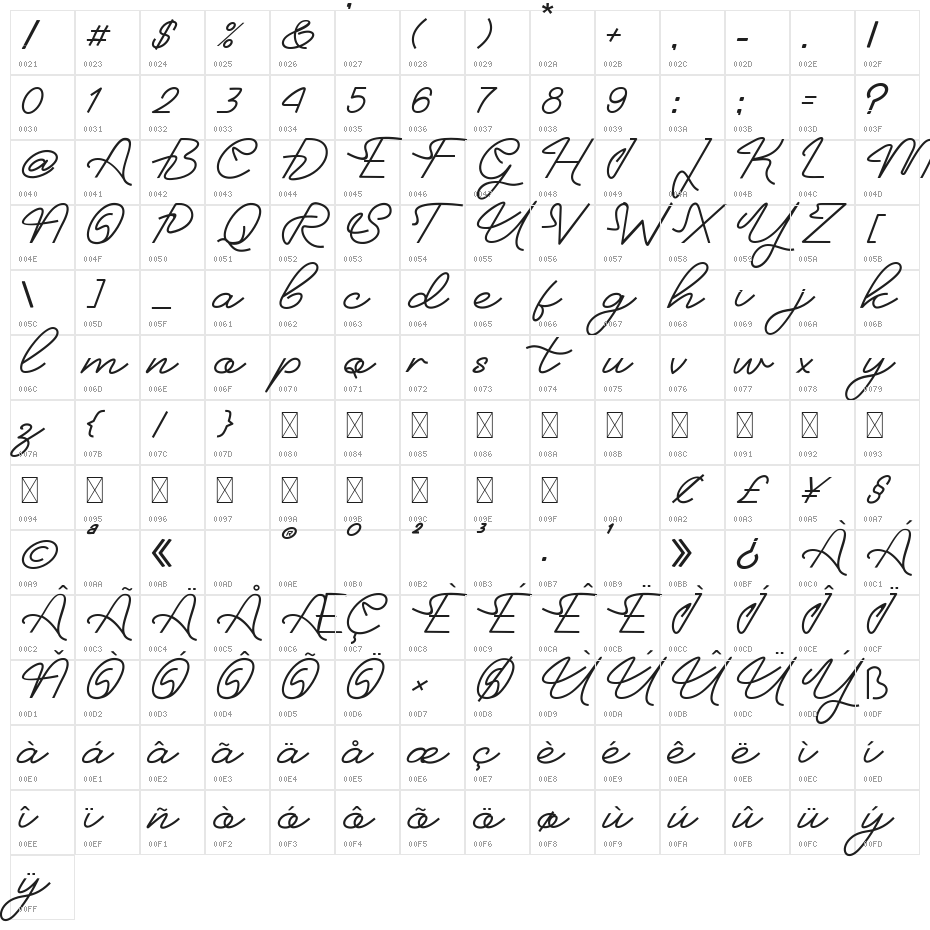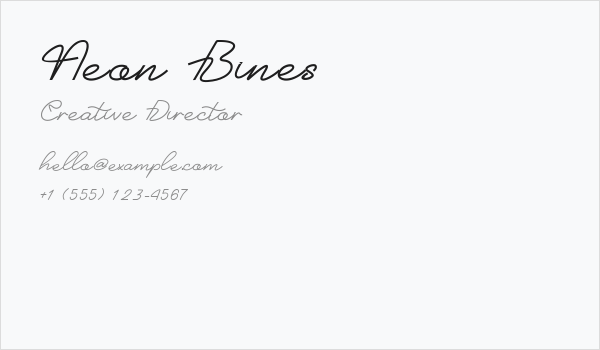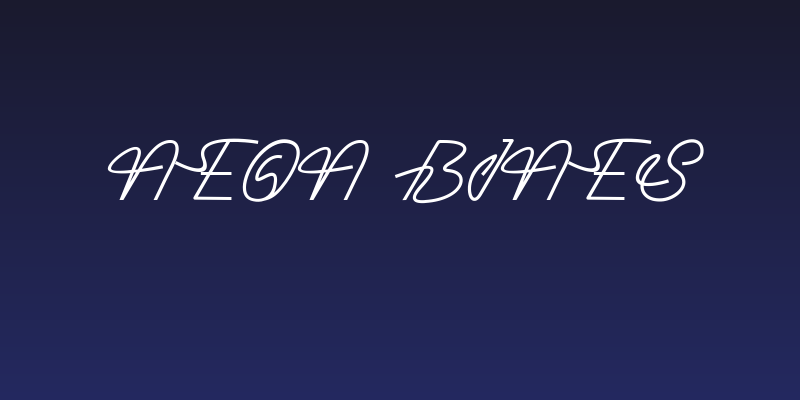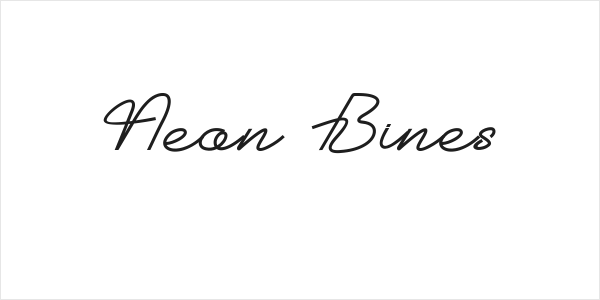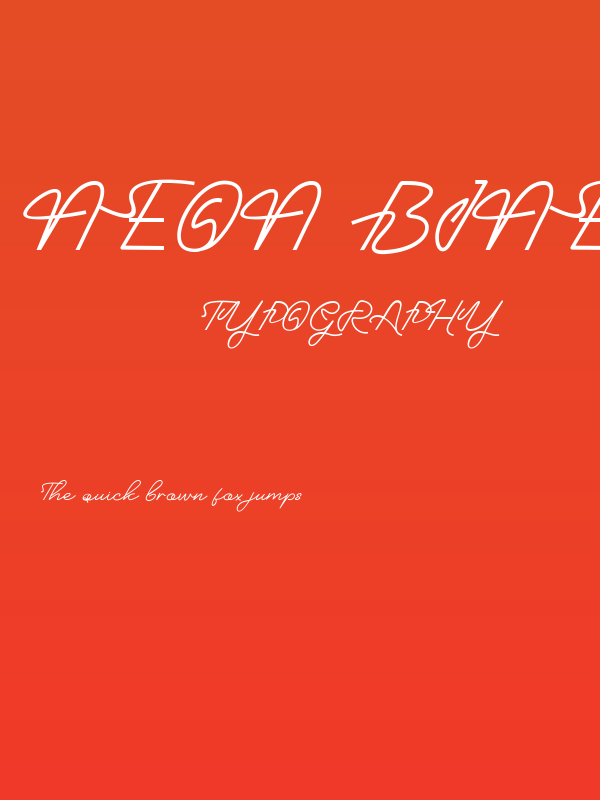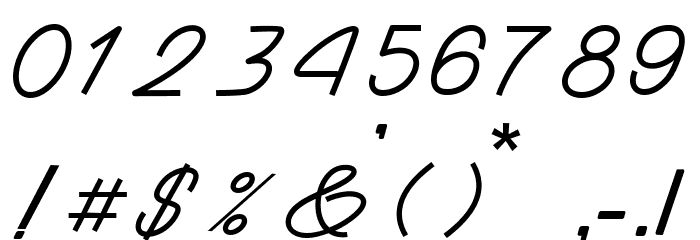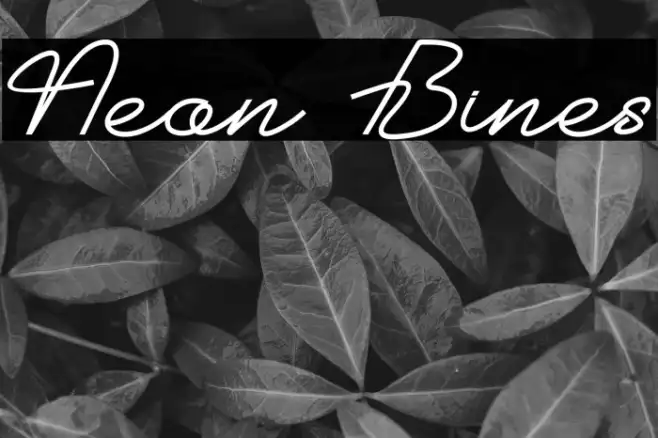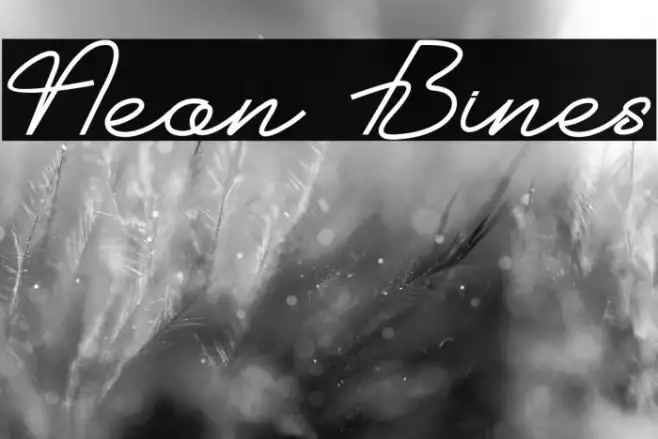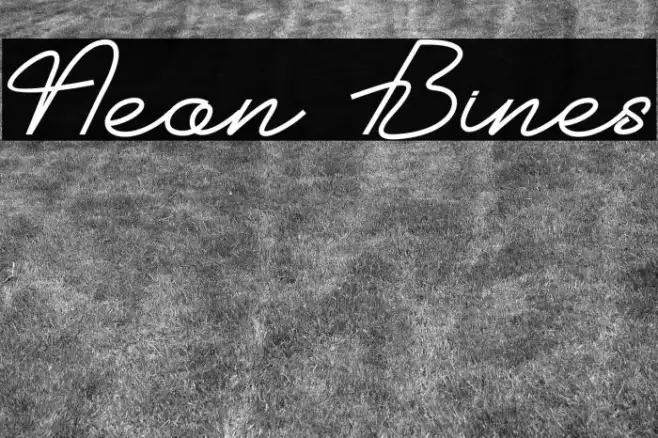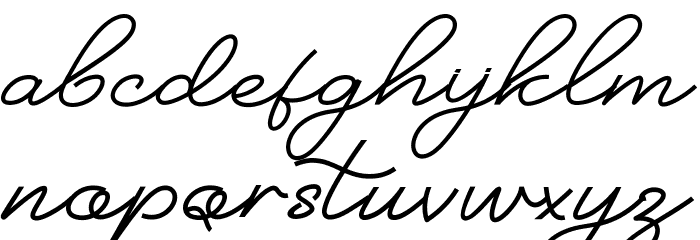
Neon Bines Font
Neon Bines Description
This font exudes a modern and elegant cursive style, characterized by smooth, flowing lines and a handwritten appearance. The uppercase letters are slightly more structured, maintaining a consistent slant that adds a sense of sophistication. The lowercase letters are more fluid, with graceful loops and curves that enhance its script-like quality. The numerals are clear and legible, maintaining the overall cursive theme. Special characters are designed to complement the alphabet, ensuring a cohesive look across all text elements. This font is ideal for projects that require a personal touch or a sense of elegance.